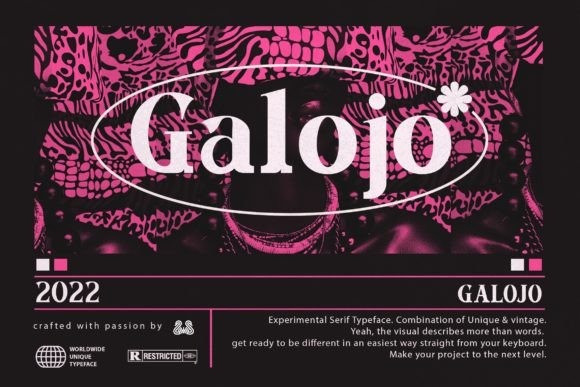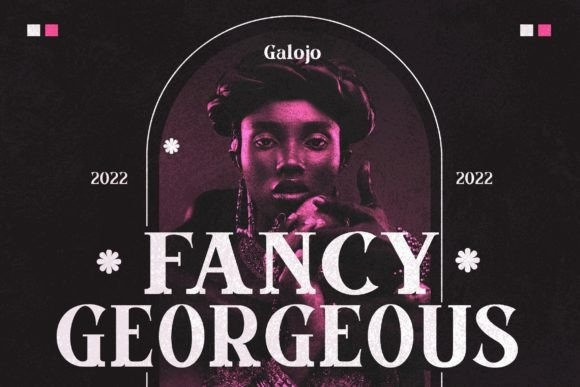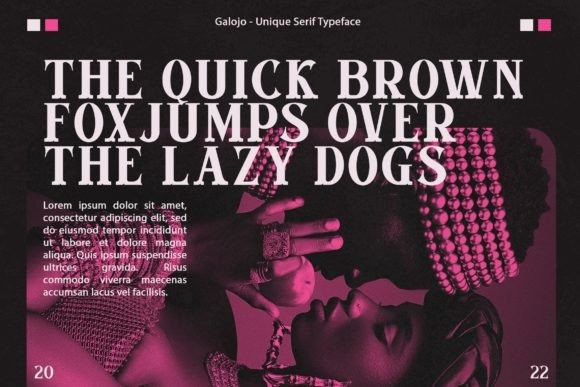
Galojo Font
Galojo is a modern and bold serif font. Add it confidently to your favorite creations and let yourself be amazed by the outcome generated. It can be used for books, magazines, social media posts, invitations, and so much more! So add this to your creations and take your designs to the next level!